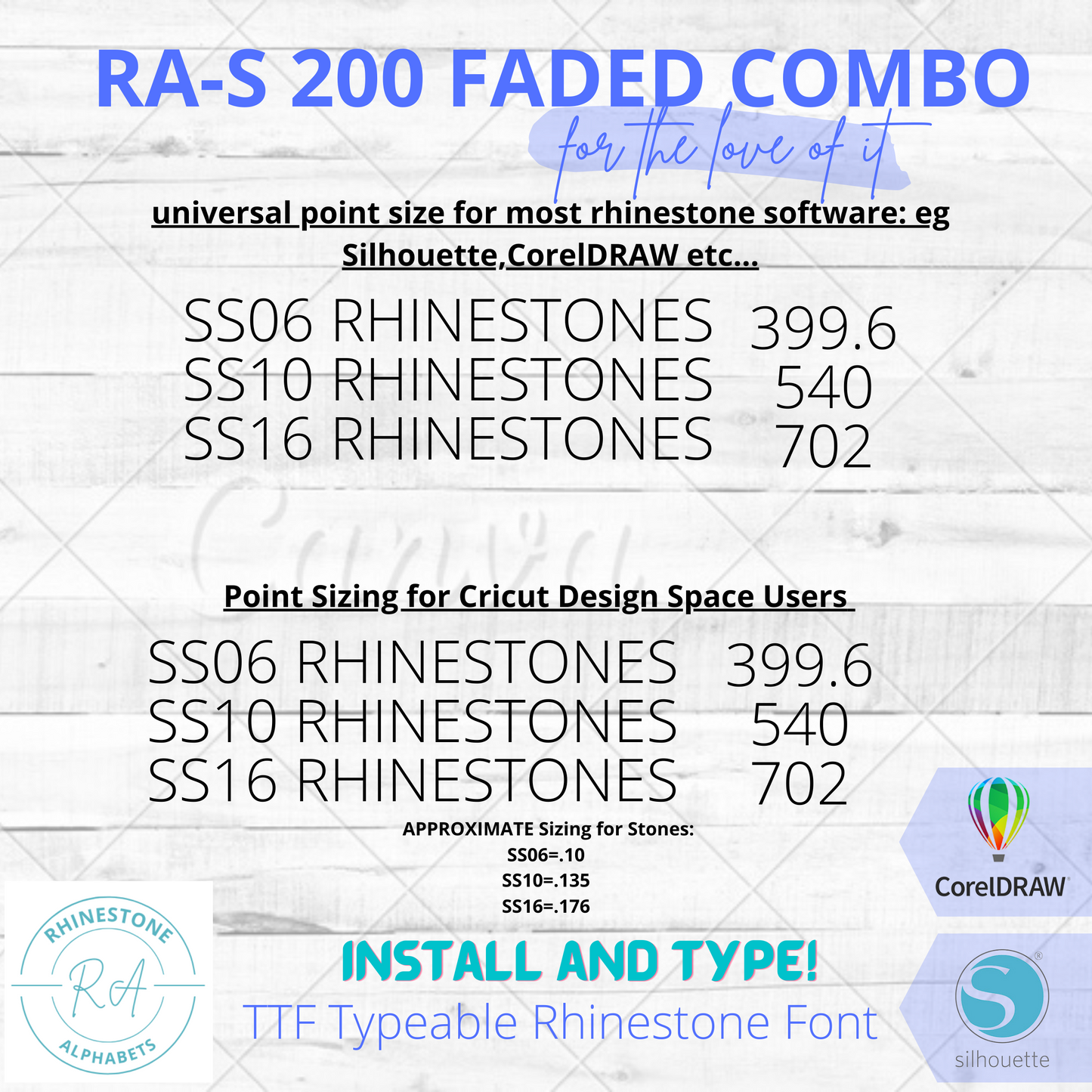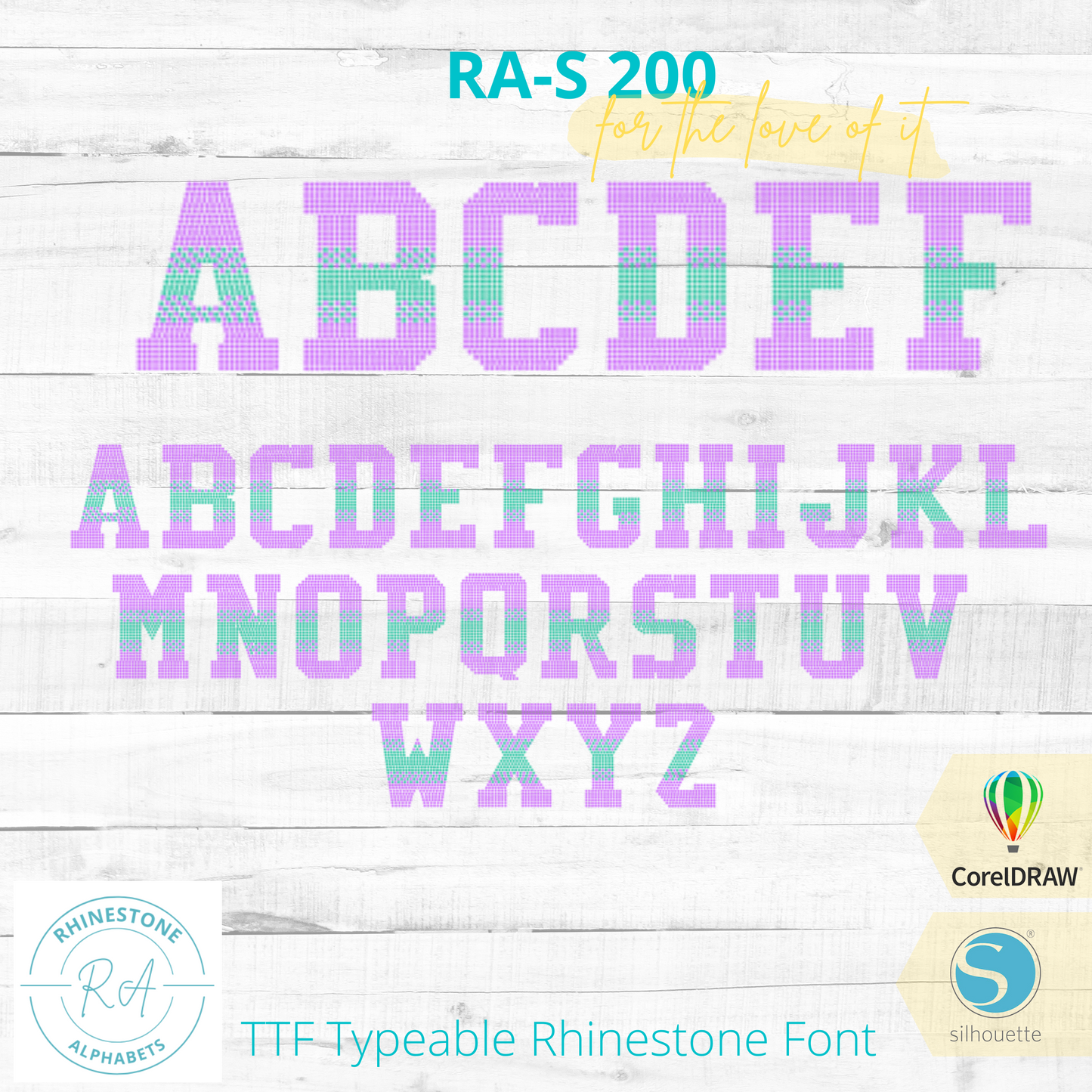
RA-S 200 Faded Combo TTF Rhinestone Font Faded Look
uppercase
5.84"
Combo
This is a very large font for Cricut Design Space to process. That is why using a Confident point value will give you an easy to cut project. You will probably only be typing 3 letters total.....With the right font size and weight, your team names, logos, or messages will have an impact that's sure to make a statement.